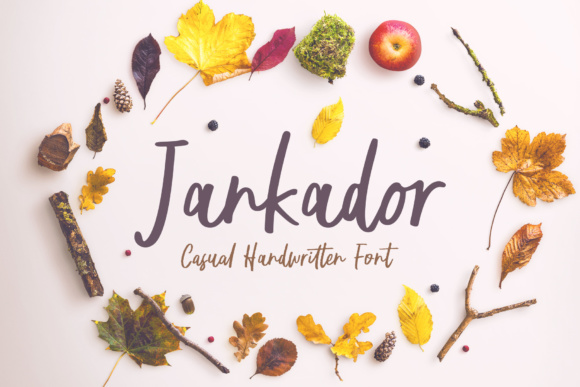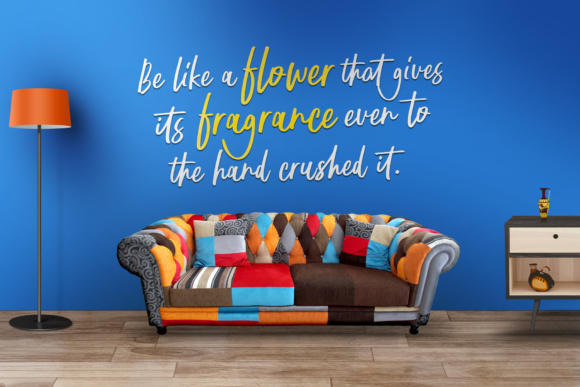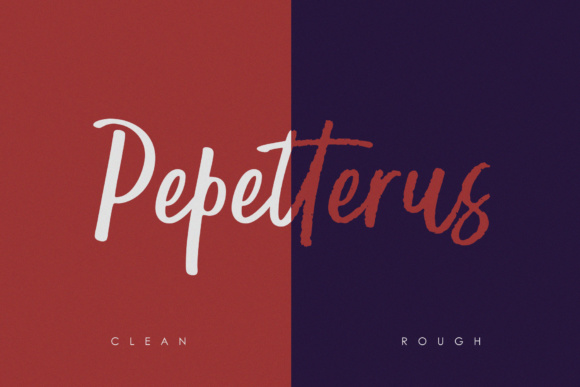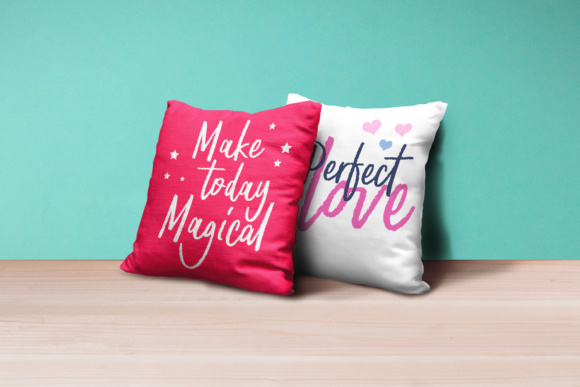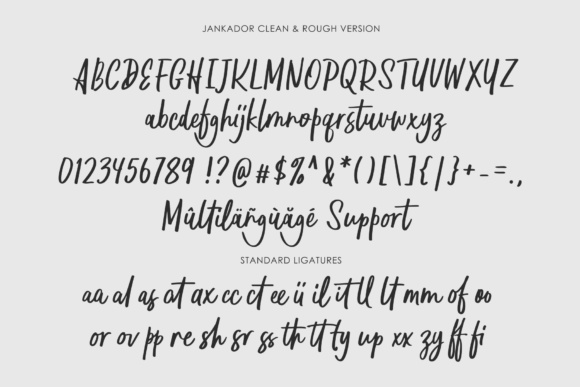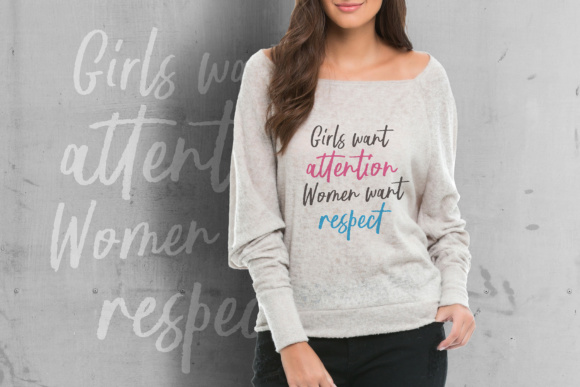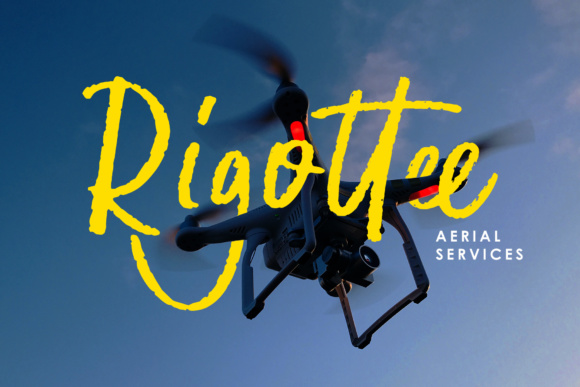
Jankador Font
About Jankador Font
Make your design more stylish with Jankador, a handwritten font that features a fast-flowing casual style. The ligatures included to make typography look more natural like a free-style signature. Jankador comes in a clean and rough style, so you can cater your typography to suit your designs.